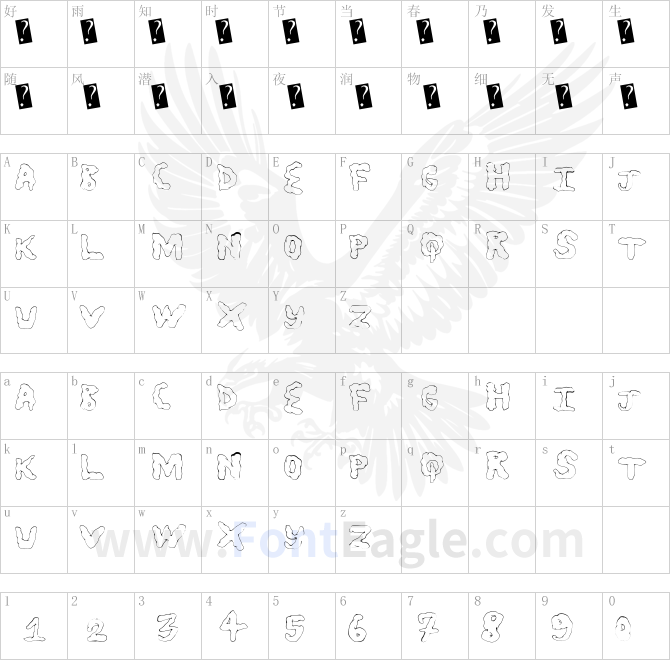
StatusUpdate is a great font, widely used in graphic design, single-page menu design, poster design and other fields, and is deeply loved by designers.StatusUpdate download.